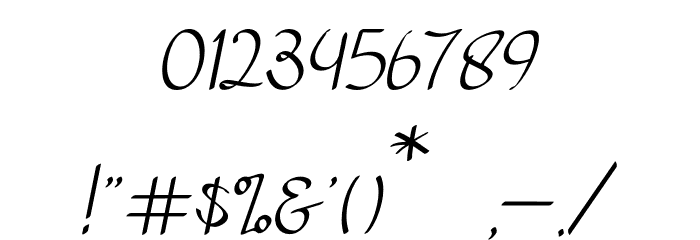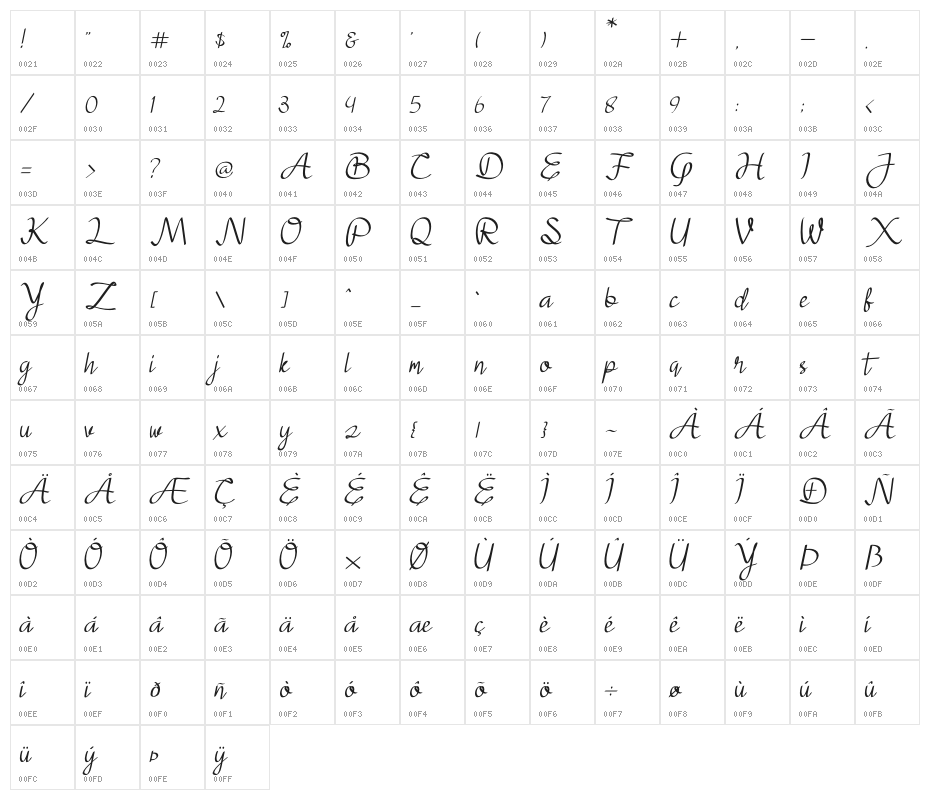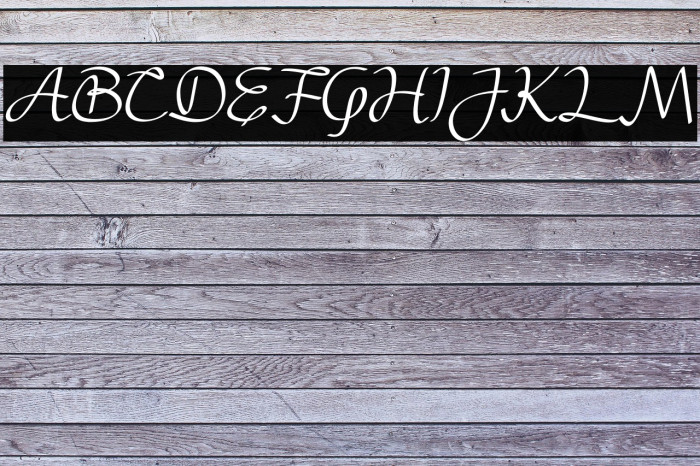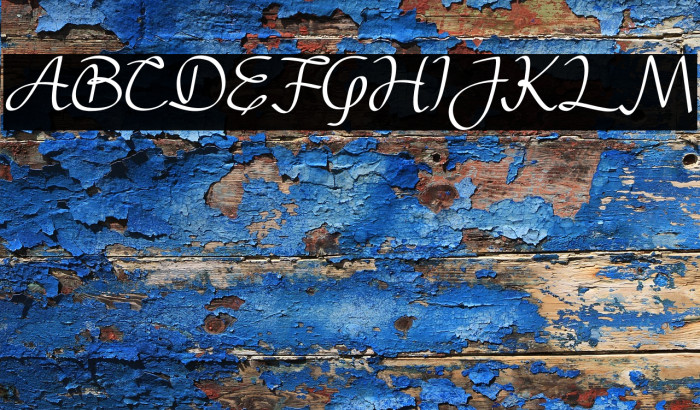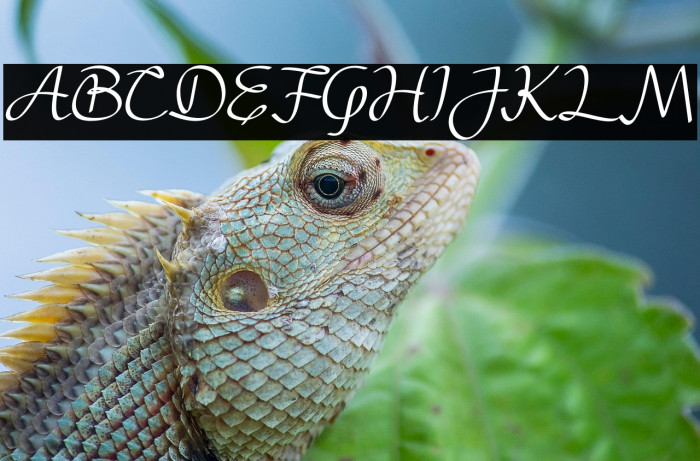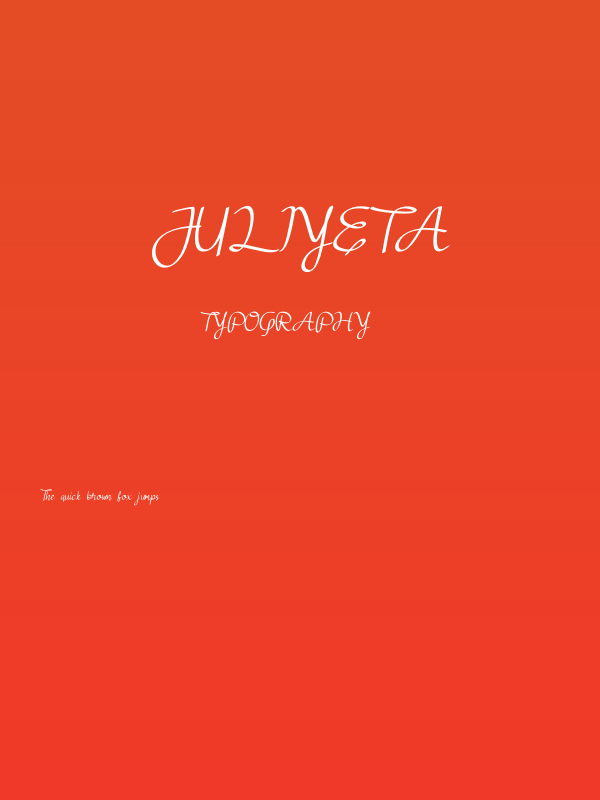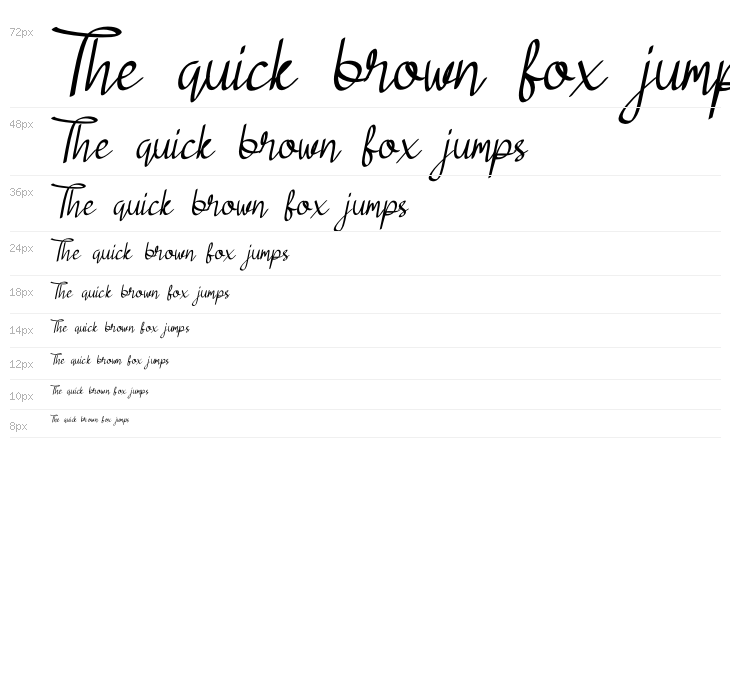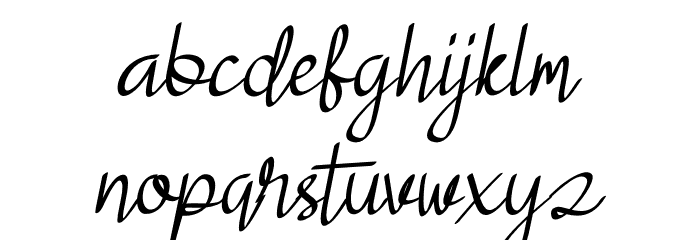
Juliyeta Font
Juliyeta Description
This font exudes a sense of elegance and fluidity, characterized by its cursive, handwritten style. The letters are interconnected with smooth, flowing strokes that mimic the natural movement of handwriting. Each character is distinct yet harmoniously blends with the others, creating a cohesive and aesthetically pleasing appearance. The uppercase letters are slightly more elaborate, with decorative loops and swirls, while the lowercase letters maintain a simpler, more streamlined form. The numerals and special characters are consistent with the overall style, ensuring a uniform look across all text elements. This font is ideal for projects that require a personal touch or a sense of sophistication.
| Proposed Projects | Ideal for wedding invitations, greeting cards, personal branding, and elegant logos. |